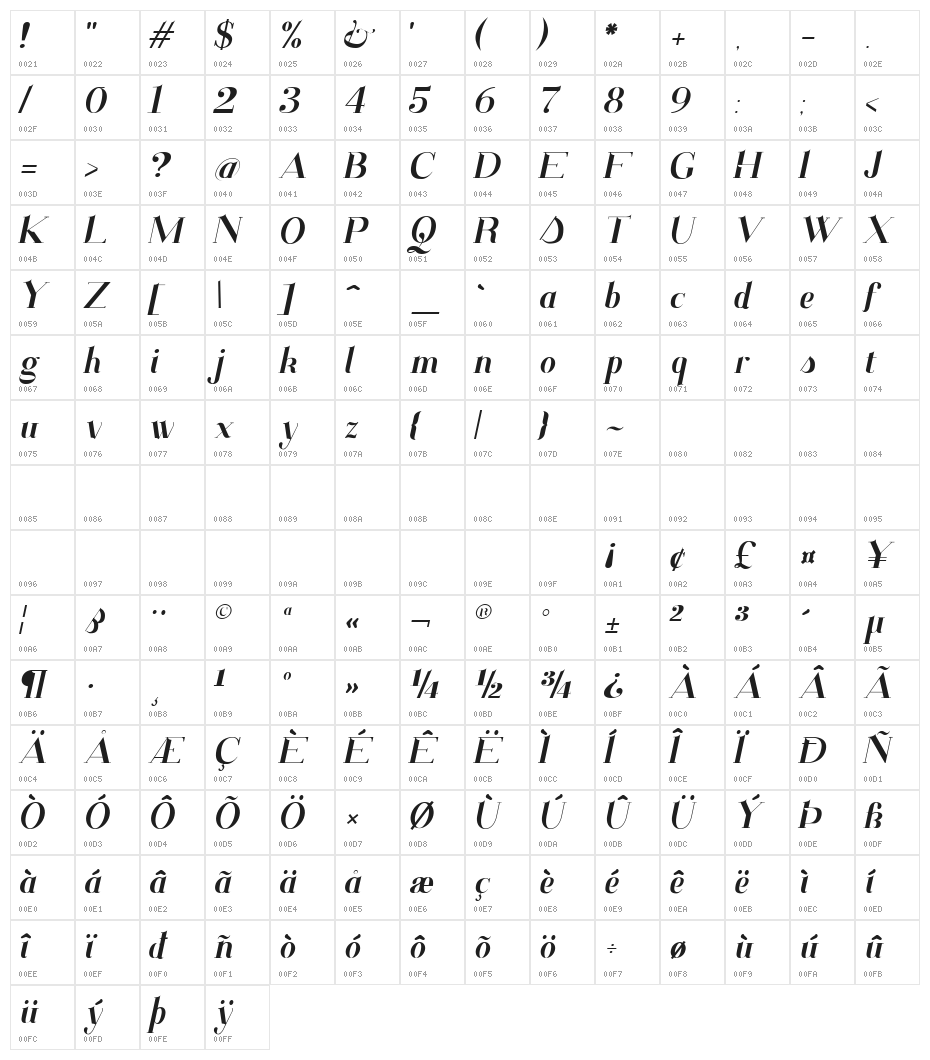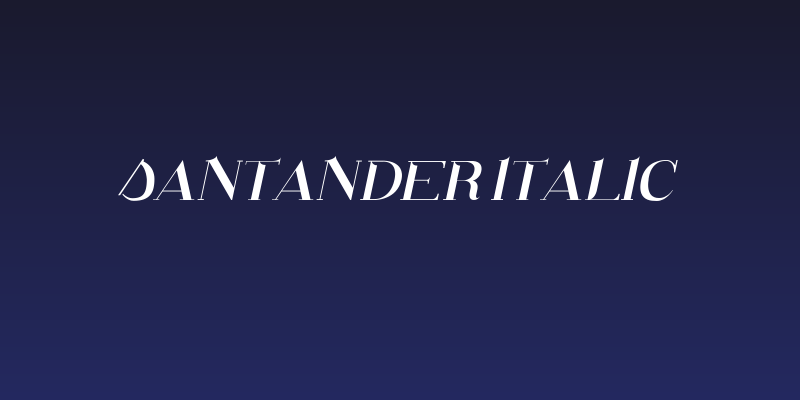
Santander italic Font
Santander italic Description
This font features an elegant and dynamic italic style, characterized by its flowing and slightly slanted letterforms. The uppercase letters exhibit a refined sophistication with sharp serifs and a graceful curvature. The lowercase letters maintain a consistent rhythm, enhancing readability while adding a touch of flair. Numbers are well-proportioned, complementing the overall aesthetic. Special characters are thoughtfully designed, ensuring versatility across various applications. The font's contrast in stroke thickness adds depth and visual interest, making it suitable for both formal and creative projects.
| Proposed Projects | Ideal for branding, editorial design, invitations, and elegant signage. |